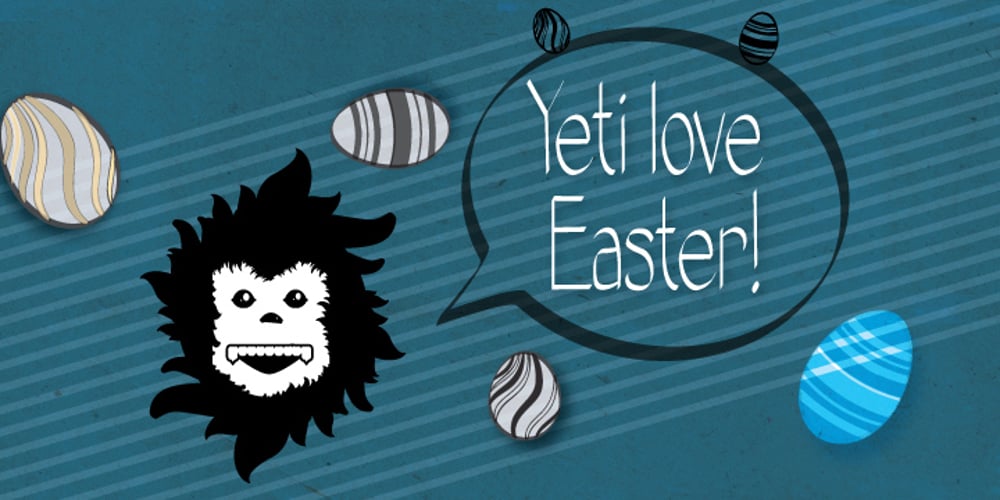
Yeti Font Family was designed by Matt Baird and published by Glyphon. Yeti contains 1 styles and family package options. Yeti is tall and hand-drawn with a hint of calligraphy. It is quite possibly influenced by a yeti’s penmanship, but even that cannot be proven. Whether you enjoy writing or designing in all-caps or not, this font has something for you. Something furry. Yeti supports multiple languages and includes graphics and web icons to help get those creative juices flowing. Naturally, yetis love Easter egg hunts and being superstitious. This font is no exception.